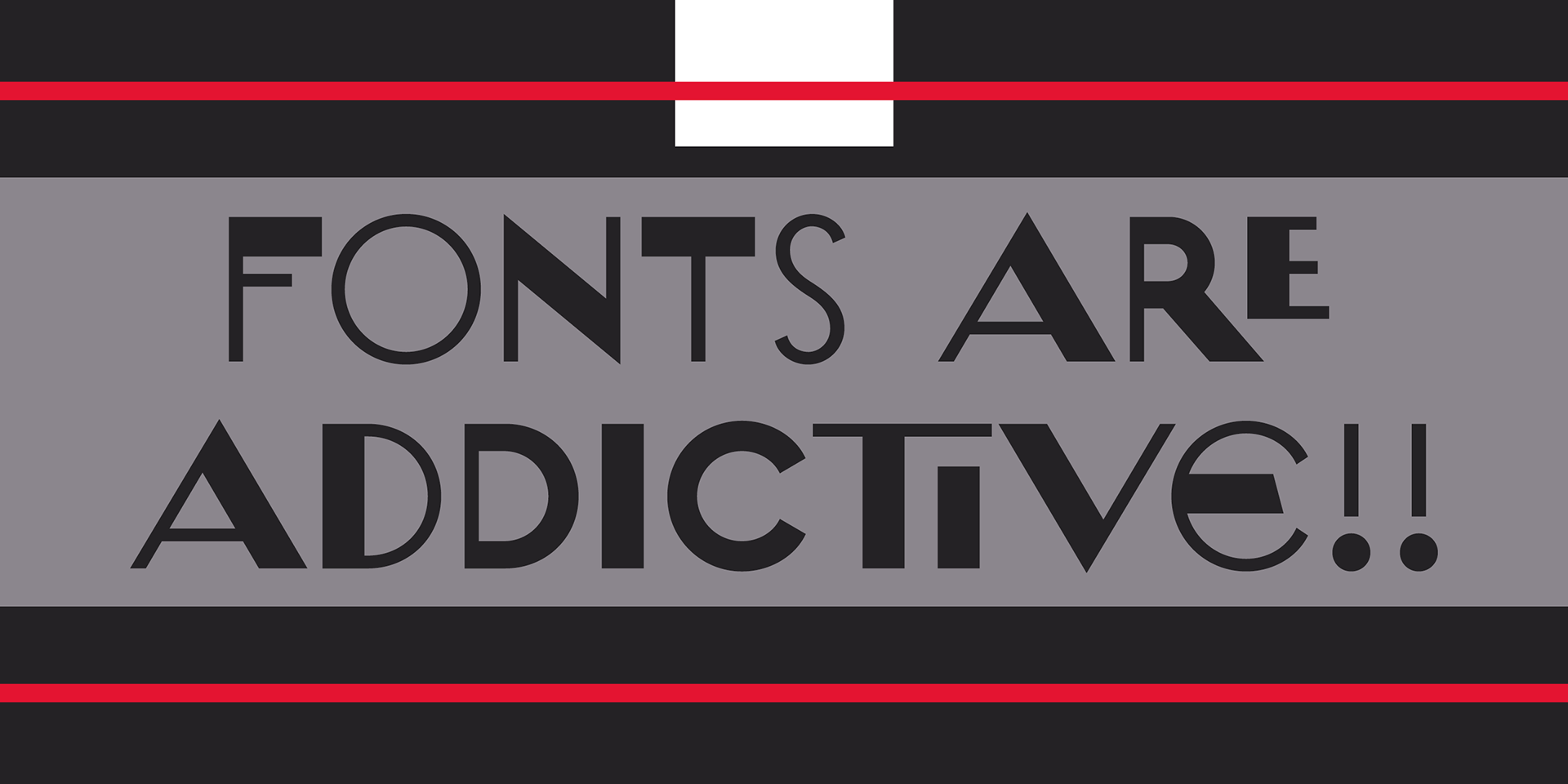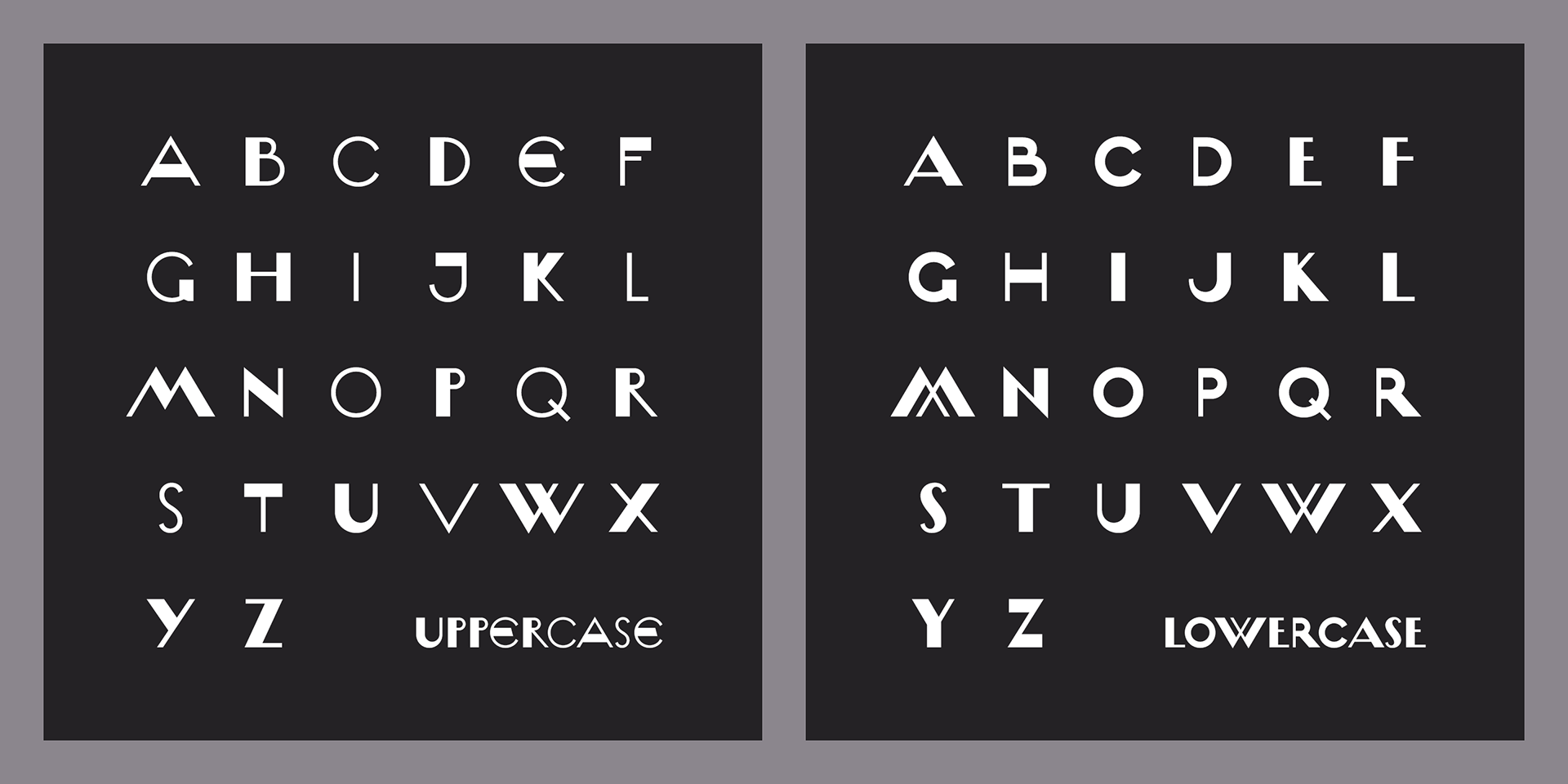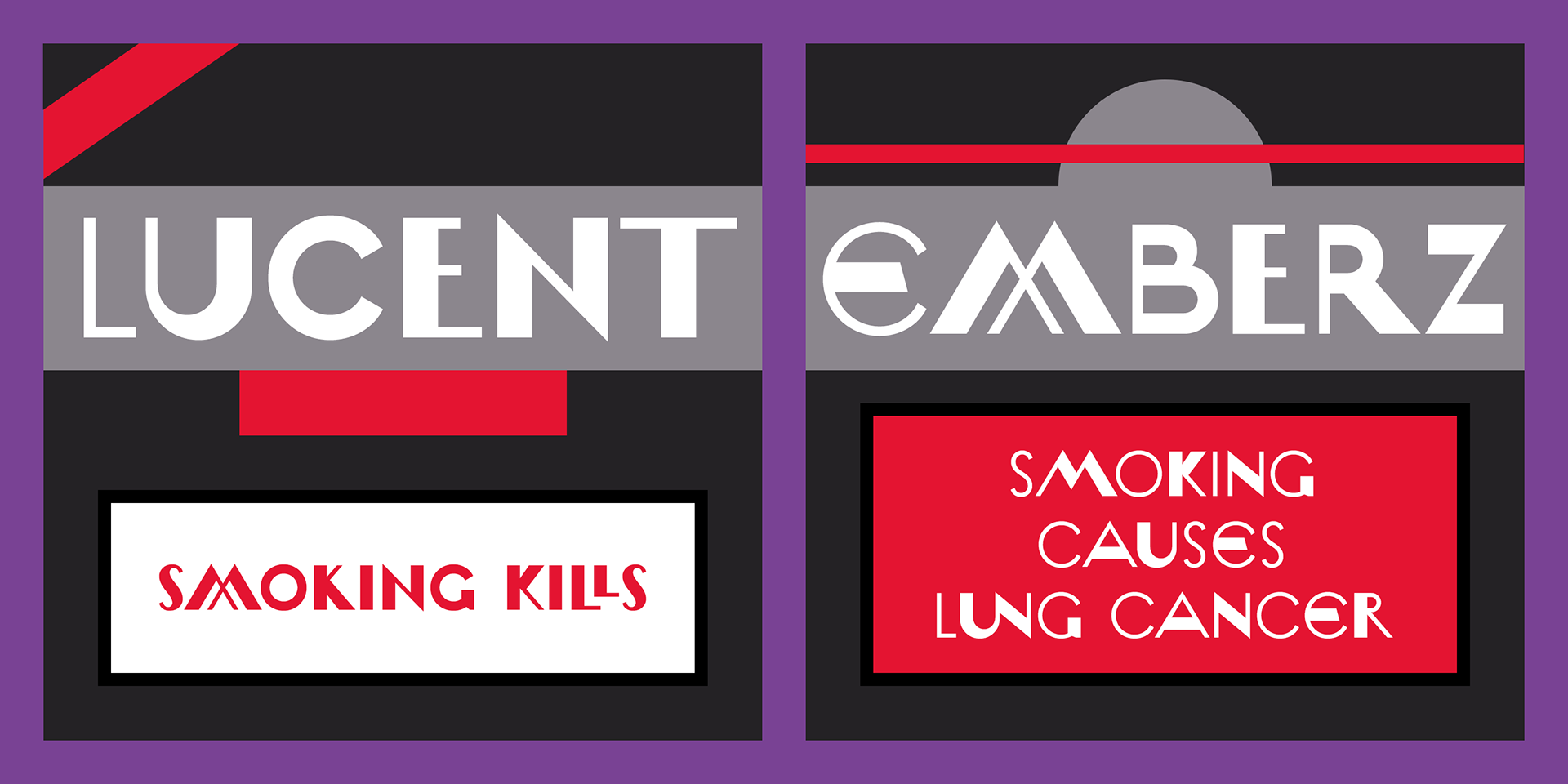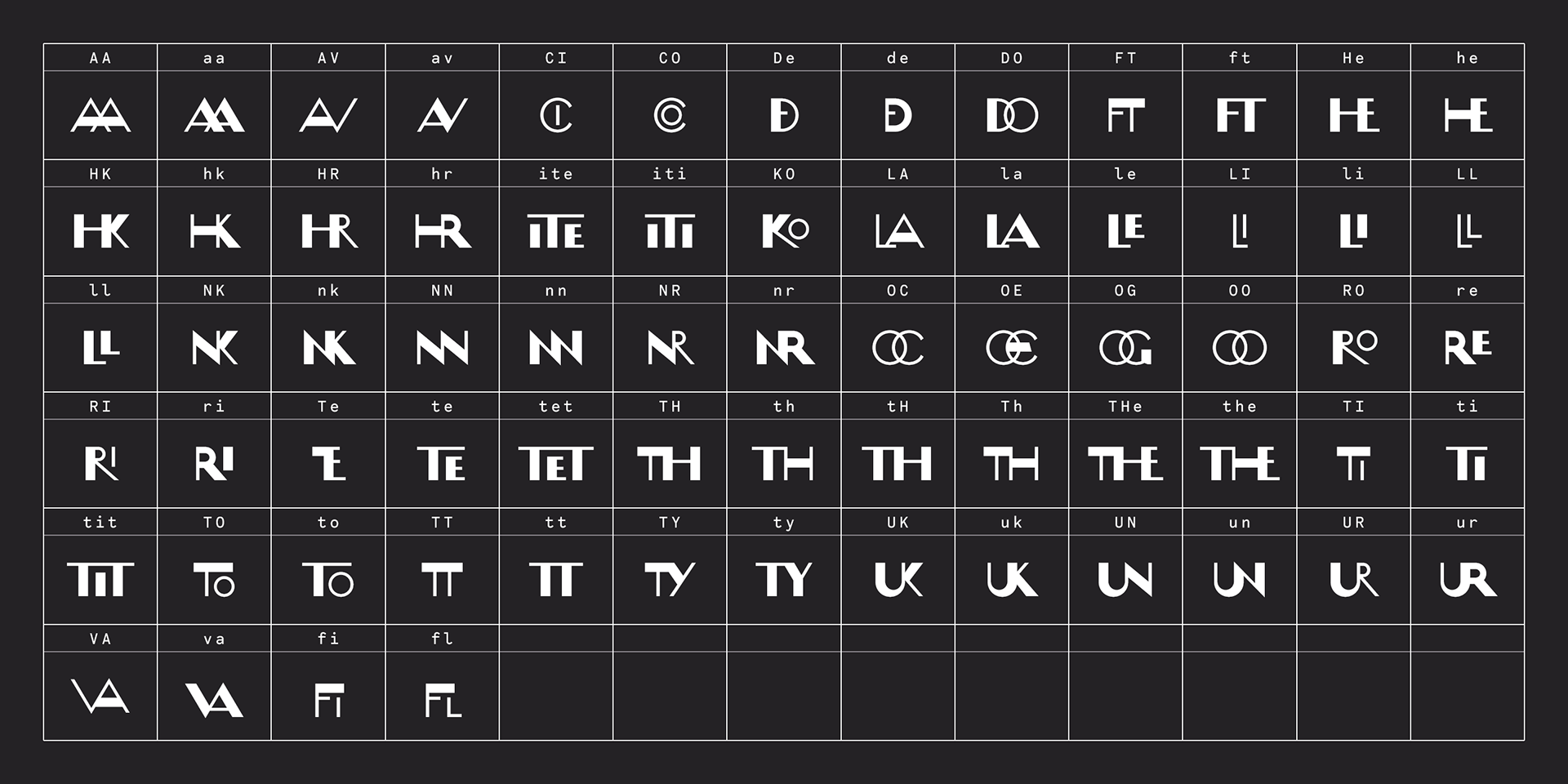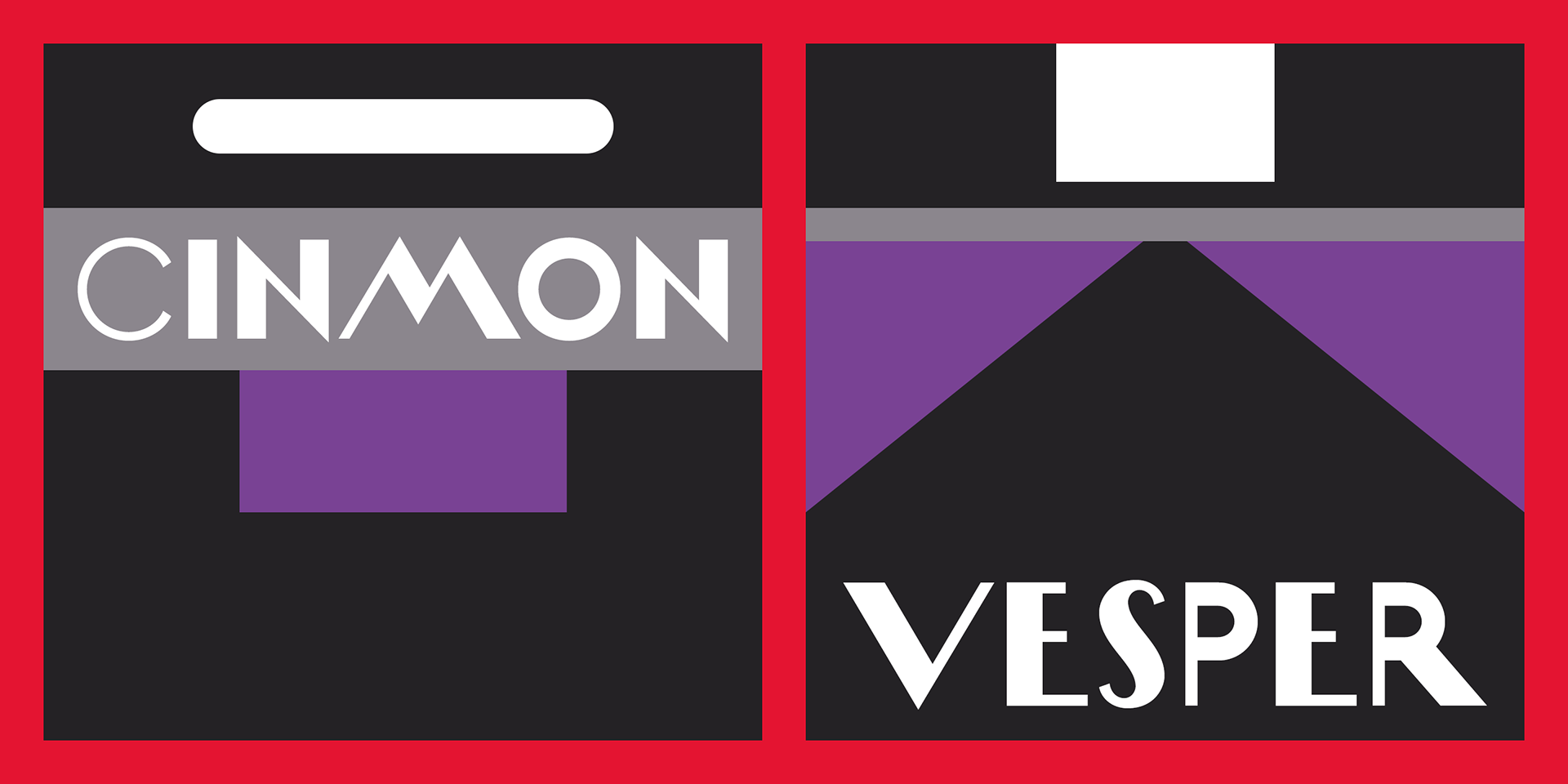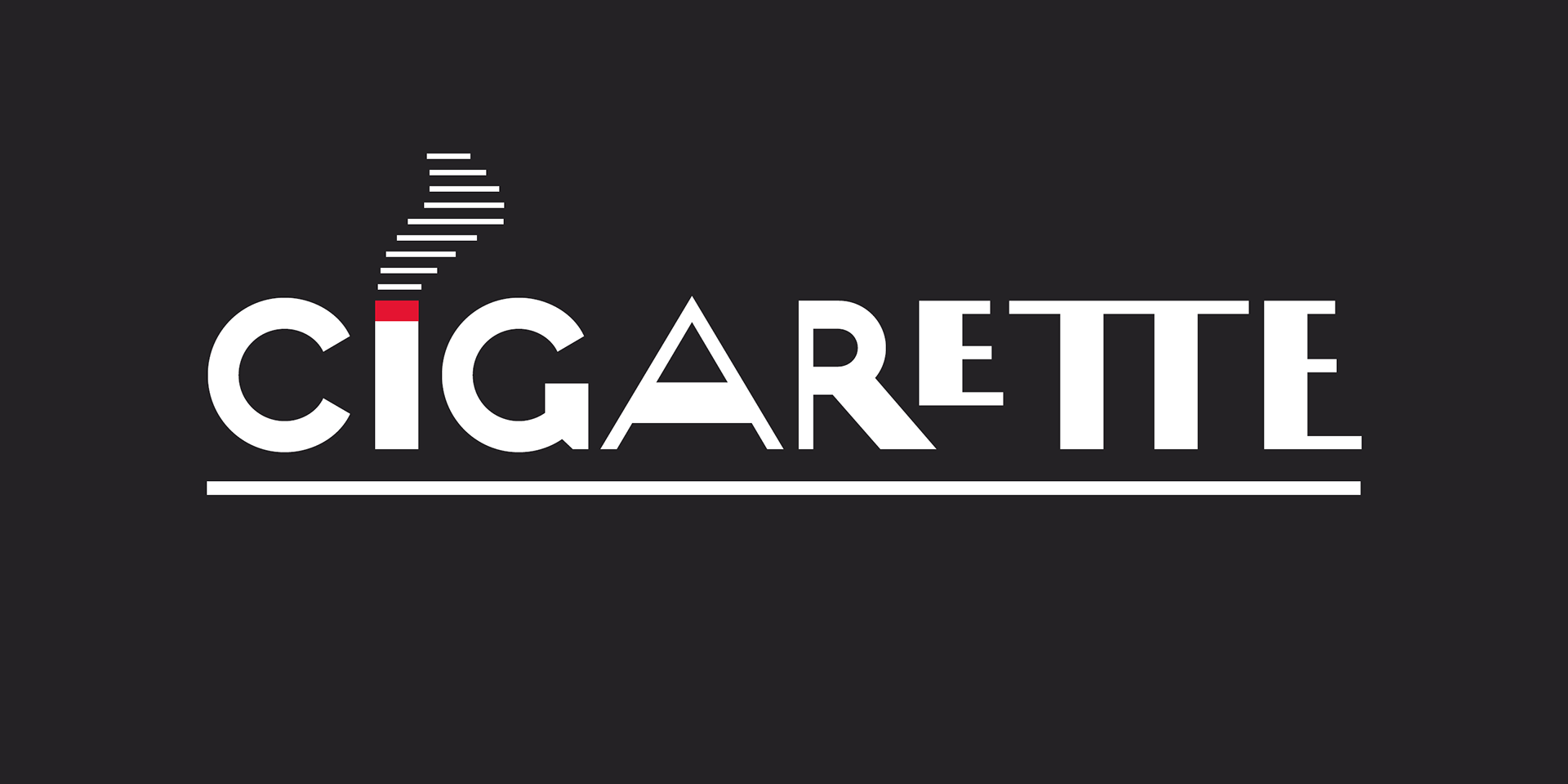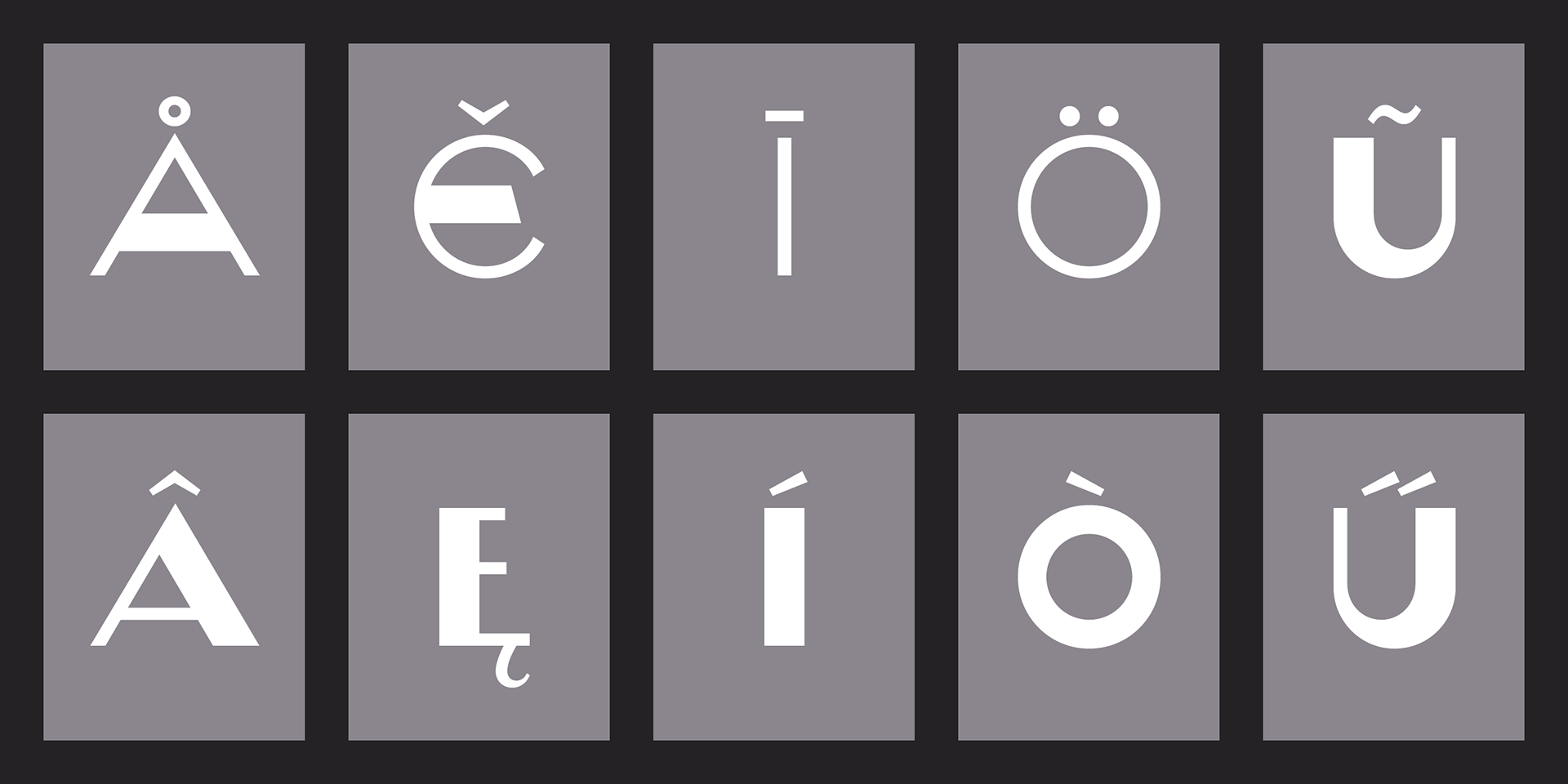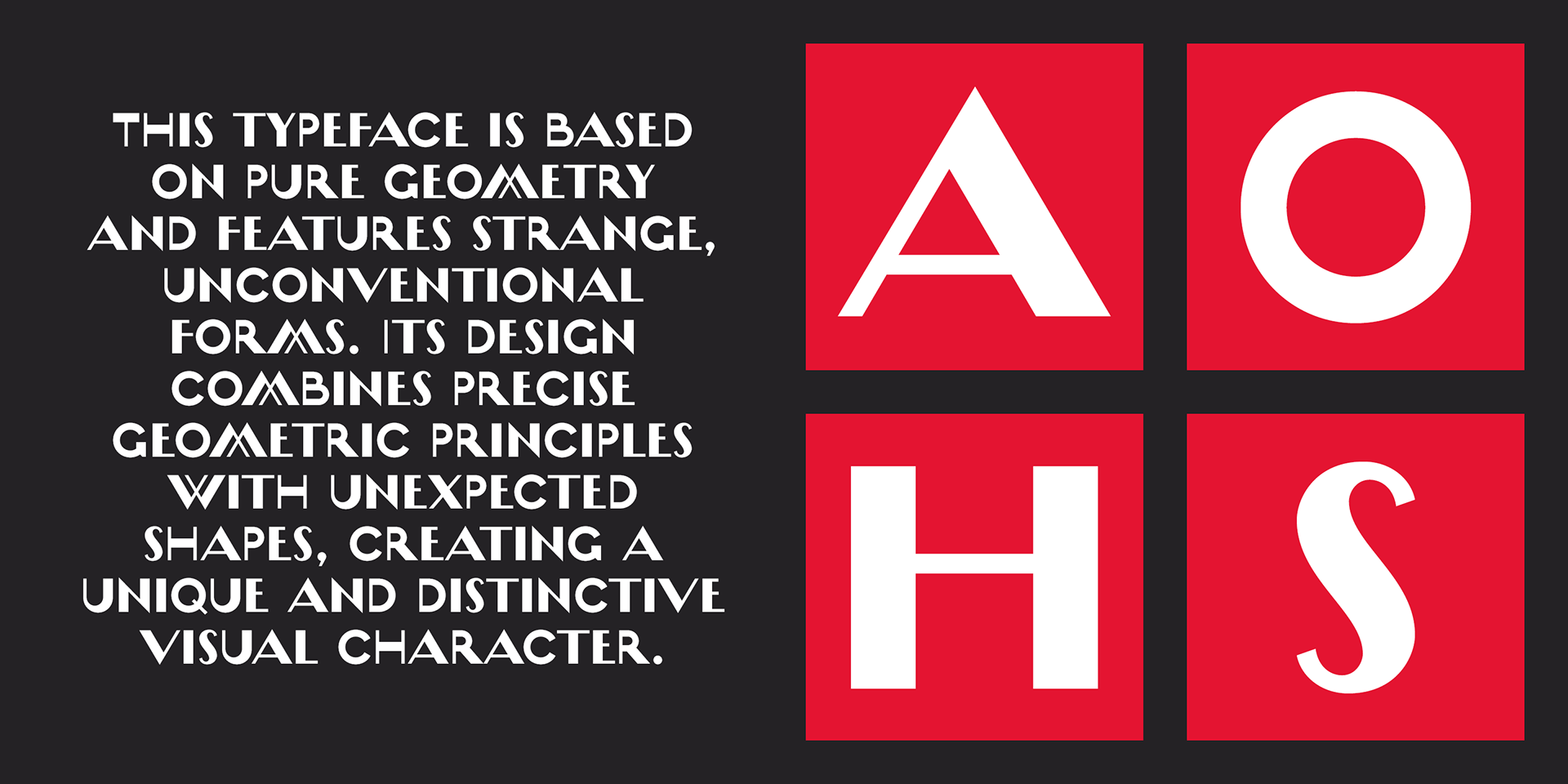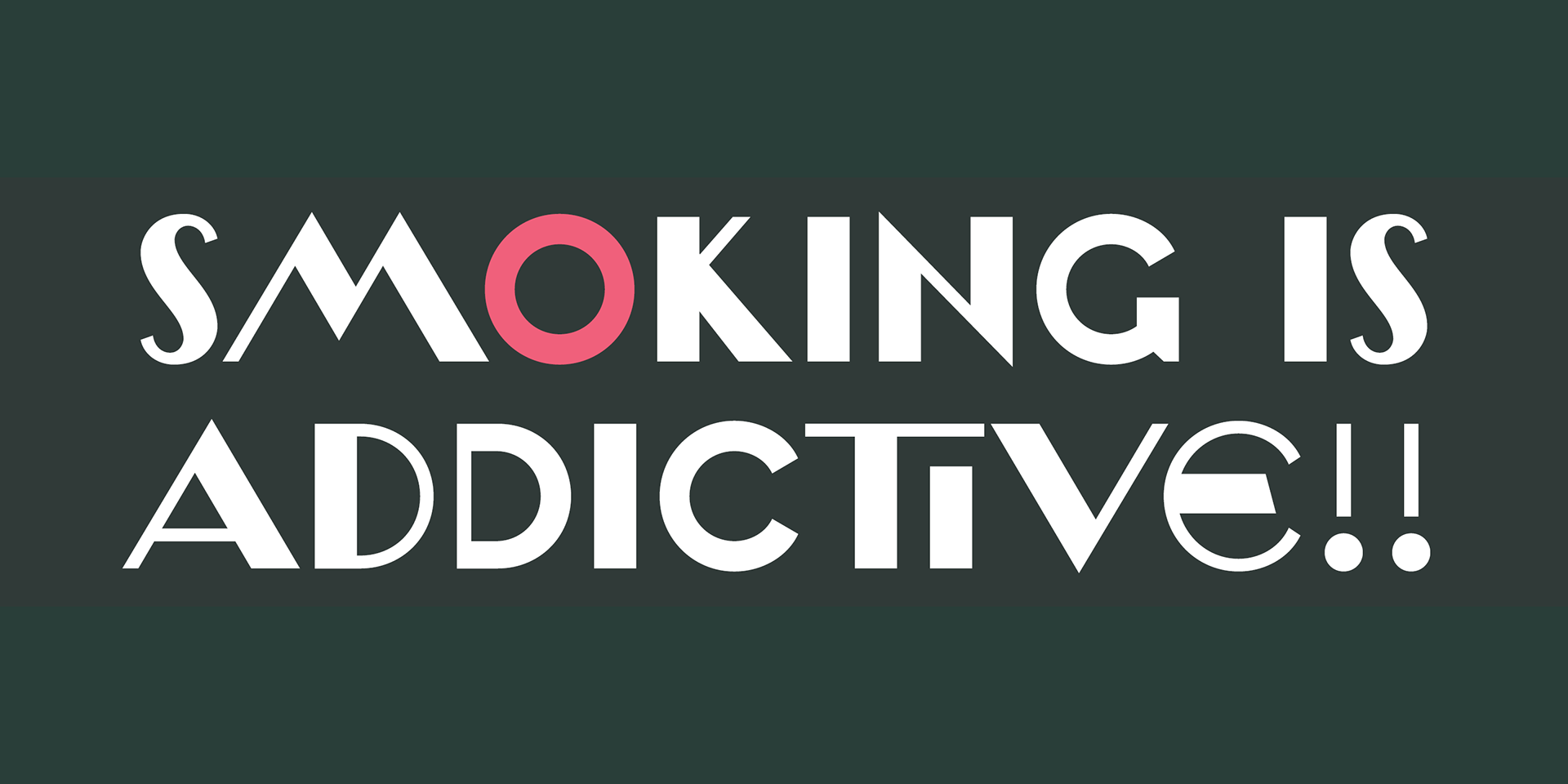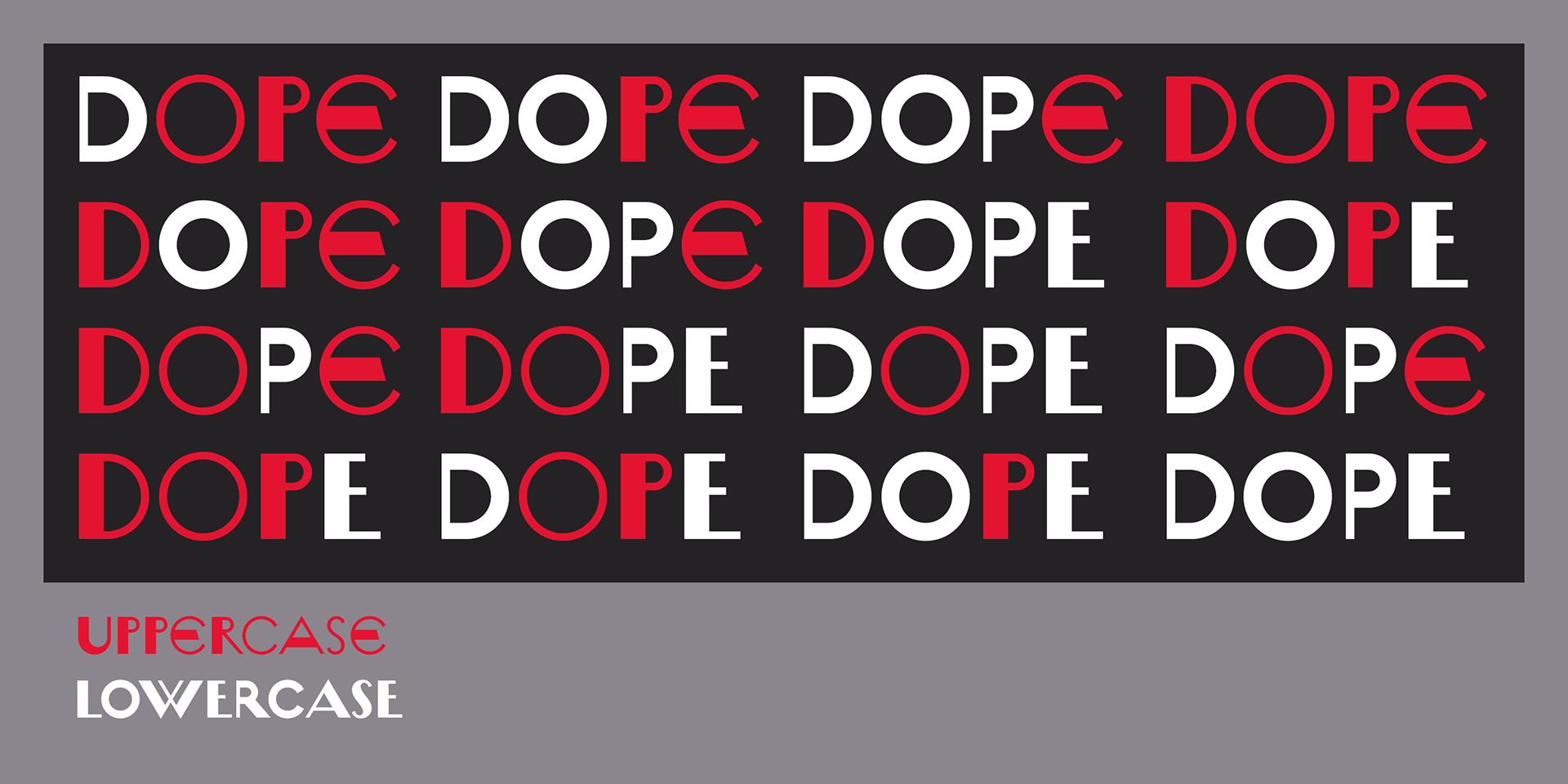
Cigarette
An experimental typeface that blends Art Deco elegance with a modern style.
Its unusual contrast creates a curious and intriguing visual effect, adding character to any design.
Includes ligatures for enhanced typographic refinement and versatility.